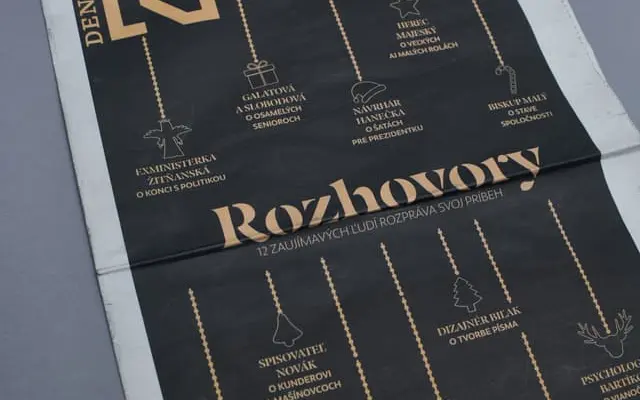
Nocturno Stencil
A stencil variant of Nocturno offered in four weights with a variable font option, shown in editorial use for Slovak newspaper Denník N.
Nocturno Stencil applies stencil interruptions to the Nocturno serif, producing four weights from Regular to Bold alongside a variable font axis. The family's use in Denník N's Christman Interview issue points toward editorial and cultural publishing contexts. Latin script coverage is provided across all styles.
A stencil variant of the Nocturno typeface family, with interrupted strokes characteristic of stencil design. Classified as display due to the decorative stencil treatment overriding conventional serif usage.